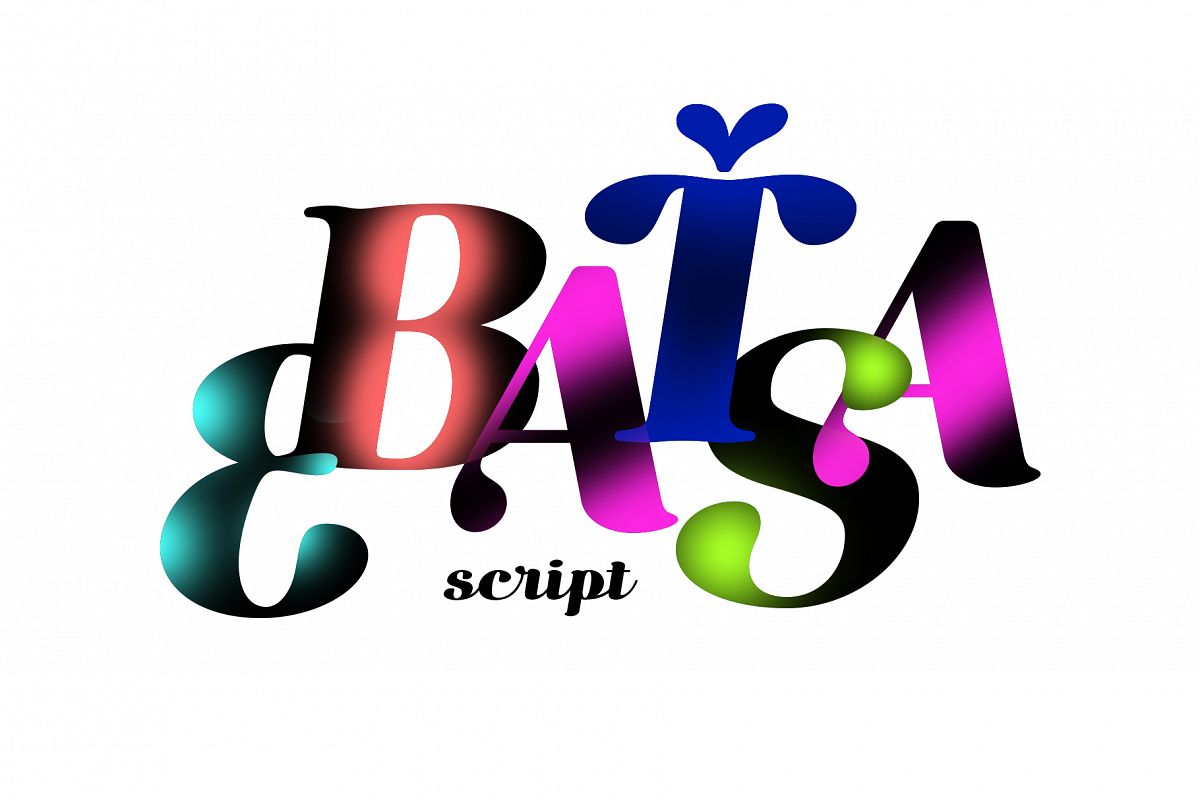
Ebatsa
Ebatsa-script
Etewut foundry proudly presents new script typeface with many alternates. The font supports all latin varieties and basic cyrillic letters.